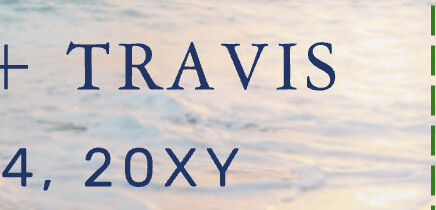
Is it possible that we add an option to select the kerning setting for each text box? Or that they are coded to use OPTICAL kerning instead of the default/auto? I notice this frequently on most of our fonts, and avoid so many of them entirely because they become a mess because of the kerning settings.
Here are two very common/popular/basic fonts and the current kerning settings. The gaps between the A and V are crazy wide and unprofessional-looking. The sans-serif font is also cramming the R and A together.
Would love to see this option or fix sometime so we can all produce more professional and more finished-looking designs.
I love the letter spacing option (tracking), but that’s not the same as actual kerning, where the space between any two letters are adjusted based on their actual width. Letter spacing will increase the space between all letters equally compared to the original font settings.
Kerning can individually adjust the spacing between each letters.
Optical kerning settings will help fonts not have inconsistent gaps between individual letters look nicer, because you don’t end up with the photos I added above, much larger gaps between some letters compared to others in the the same word.
Kerning is something you define during the font creation, character by character, AND also for special character combos, like the mentioned AV (or VA). So it’s primarily the font you use that may look good (good kerning) or not that good (bad kerning). You see the differences well within the designer, there are fonts that look perfect, whatever you write, and there are fonts that look great in some circumstances but awful in others. Some fonts (mostly decorative cursive fonts such as Roundhand) can’t even be correctly centered visually without off-centering the text box.
Not every software can handle specific kerning, and there is software (mostly graphic software, such as Corel Draw) that lets you even manually adjust every character’s horizontal position. I doubt this will be an easy task to implement, we don’t even have a pretty basic justify text alignment nor a text contour feature.